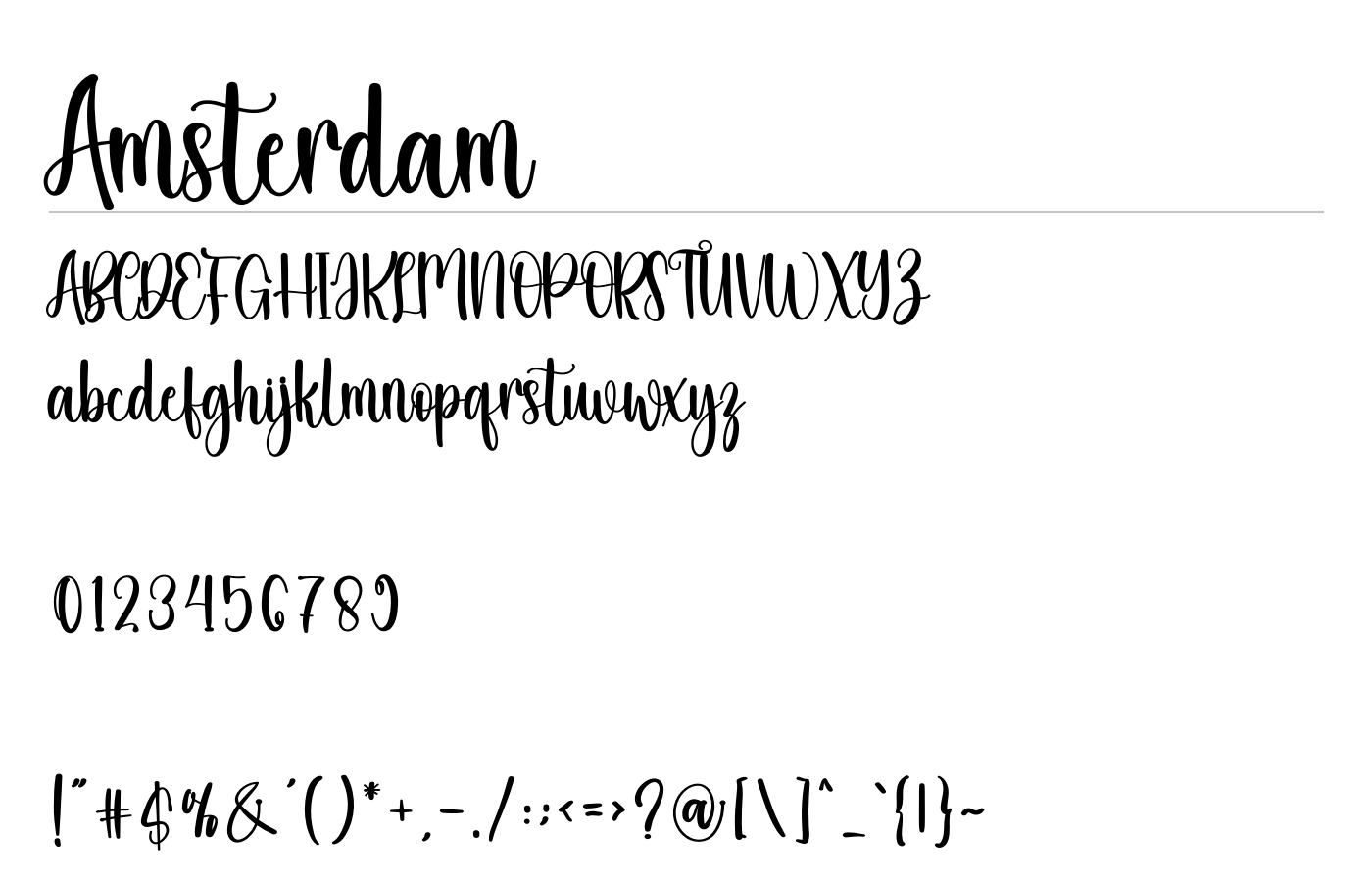
Amsterdam Font is a lively and elegant script typeface characterized by flowing, hand-drawn strokes with a playful yet refined feel. Its tall, slightly condensed letterforms and consistent stroke weight make it ideal for creative branding, invitations, and headlines where a personal, artistic touch is desired. This font’s charming curves and expressive letter shapes add a warm and approachable personality to any design.
Amsterdam Font
About Amsterdam Font